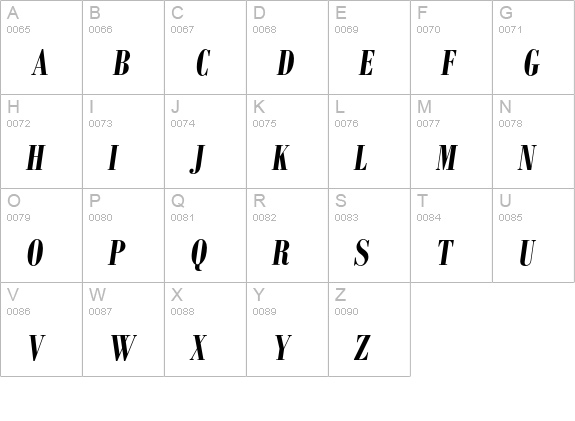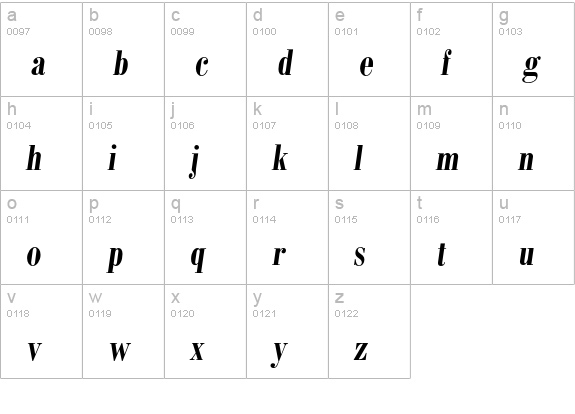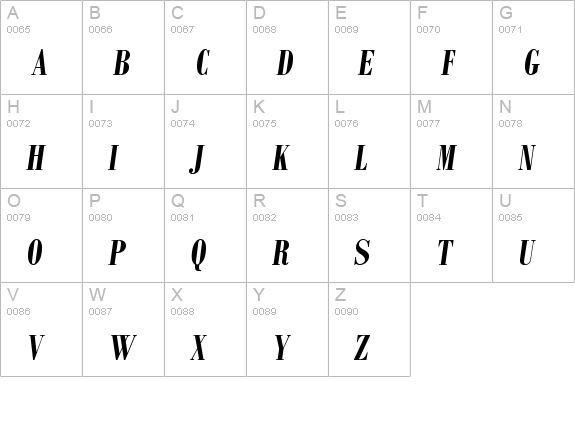
Bodoni Bold Condensed Italic Font Details
Bodoni Bold Condensed Italic is a strong, high-contrast, condensed-width, italic variant in the Bodoni typeface family \xE2\x80\x94 well suited to headlines, attention-grabbing titles, and strong calls-to-action.
Bodoni Bold Condensed Italic font is a striking and elegant typeface that exudes sophistication and modernity. With its sleek lines and sharp contrast between thick and thin strokes, this font commands attention and adds a touch of luxury to any design project. Perfect for headlines, logos, and branding materials, Bodoni Bold Condensed Italic font brings a sense of refinement and class to your work. Its condensed form adds a sense of urgency and emphasis, making it ideal for conveying bold messages in a visually impactful way. And the best part? Bodoni Bold Condensed Italic font is available for free download at FontsMarket.com. Now you can access this premium font without any cost, making it a valuable addition to your design toolkit. Don't miss out on the opportunity to elevate your designs with the timeless beauty of Bodoni Bold Condensed Italic font. Download it today and see the difference it can make in your projects!